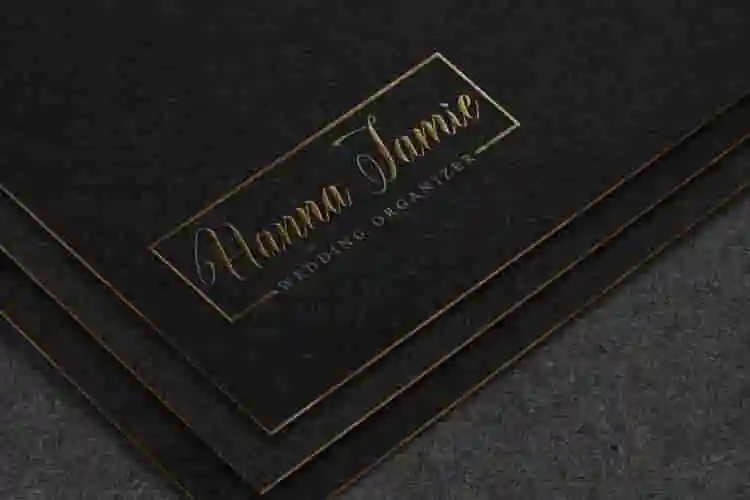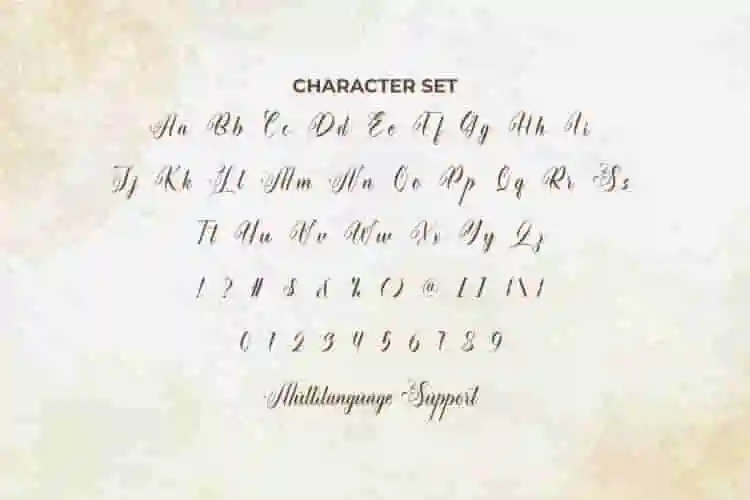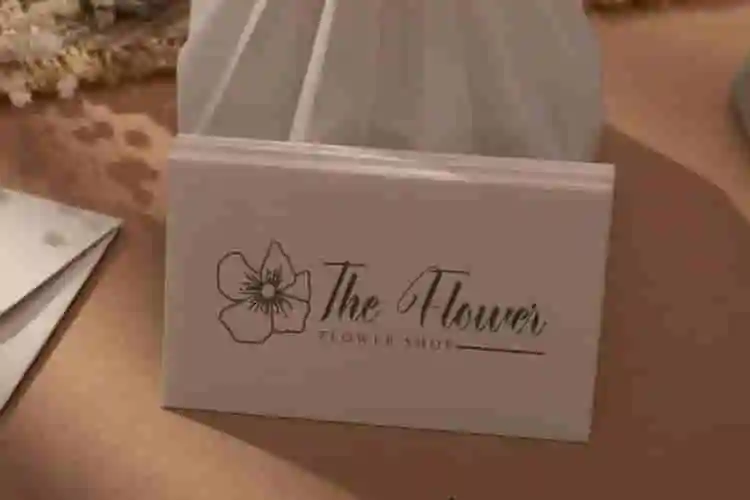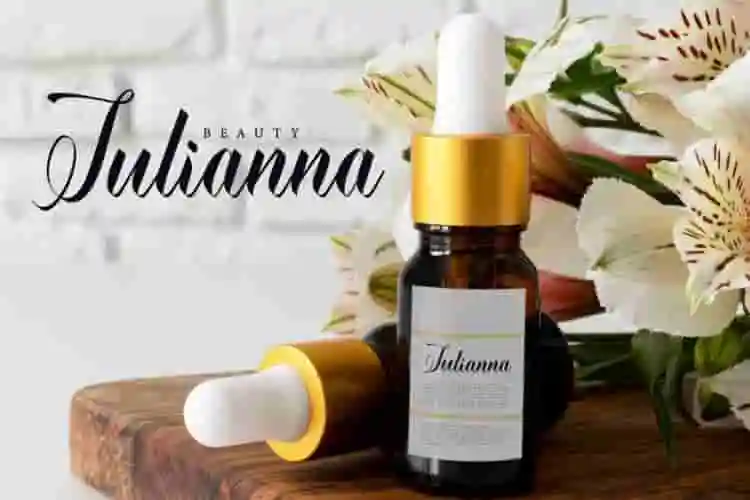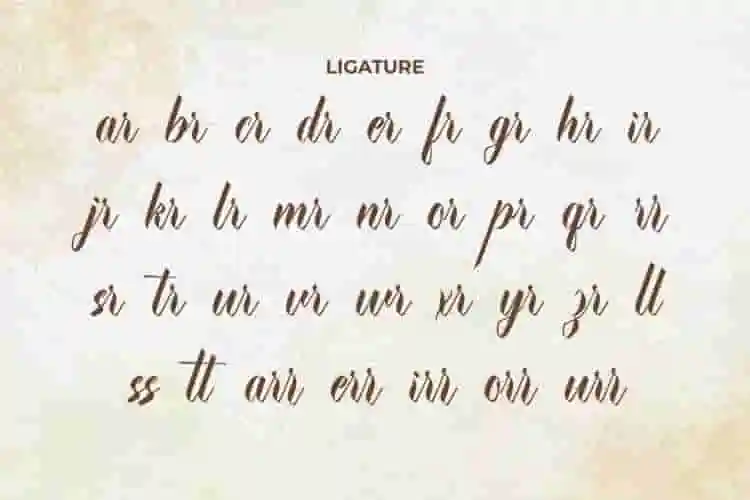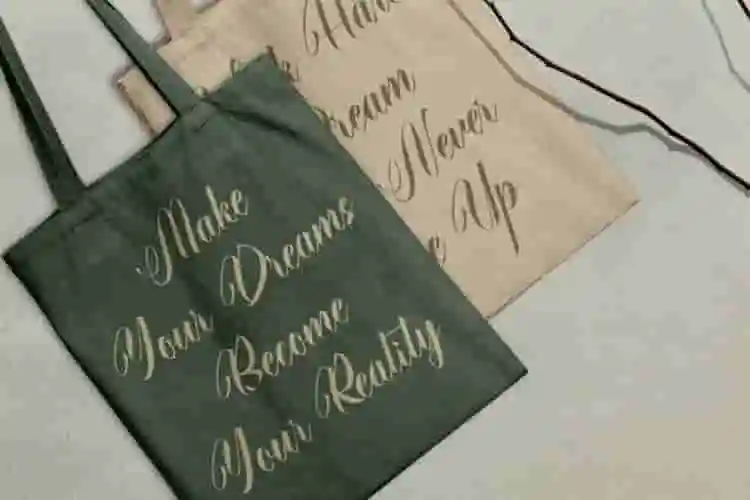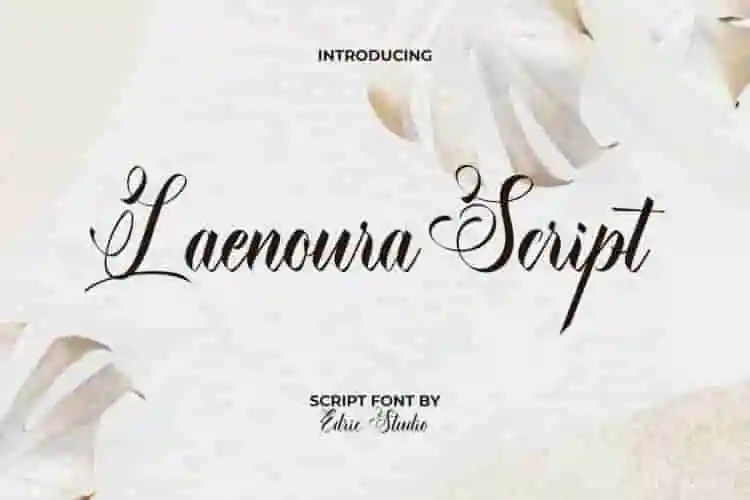
Laenoura Script Font is a beautiful script font with a classic vibes, exclusively created by EdricStudio. This font is crafted with perfection and easy to read making it suitable for any industry, such as beauty product, boutique, event organizer, fashion, flower shop, handicraft, photography, restaurant, and anything that requires a stunning look.
Laenoura Script Font comes with a full set of Uppercase and Lowercase Basic Characters, Number, a large range of Punctuation and Symbol. It has a stunning characters set, perfectly managed with well spaced and kerning. Laenoura Script Font will be great for any projects (with extended license) including : apps, brand logo, catalog, header, invitation, label, product packaging, stationery, website, etc.
Introducing Laenoura, a beautifully flowing script font designed to bring elegance and romance into your creative projects. Inspired by handwritten calligraphy, Laenoura combines classic charm with a modern, refined touch
Perfect for wedding invitations, branding, social media, and quotes, Laenoura Script Font captures the essence of personal handwriting with graceful curves and delicate strokes.
This elegant script font is crafted to add sophistication and emotion to your designs. From feminine logos to high-end packaging and heartfelt greeting cards.
- Uppercase & lowercase letters
- Beautiful ligatures and stylistic alternates
Laenoura Script Font also has ligature character option that you can choose and use to make it stand out. Ready to use both on Windows machine or Mac with simple installations with multilingual characters supported. It’s tested to work well in the Adobe Apps (Illustrator, Adobe InDesign, Adobe Photoshop) even work on Microsoft Word. PUA Encode Characters means you can access all characters easily – Fully accessible without additional design software.